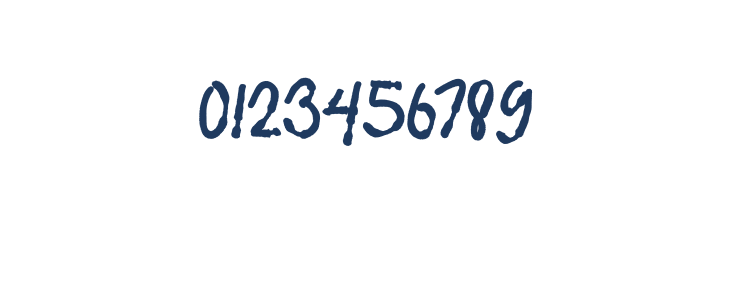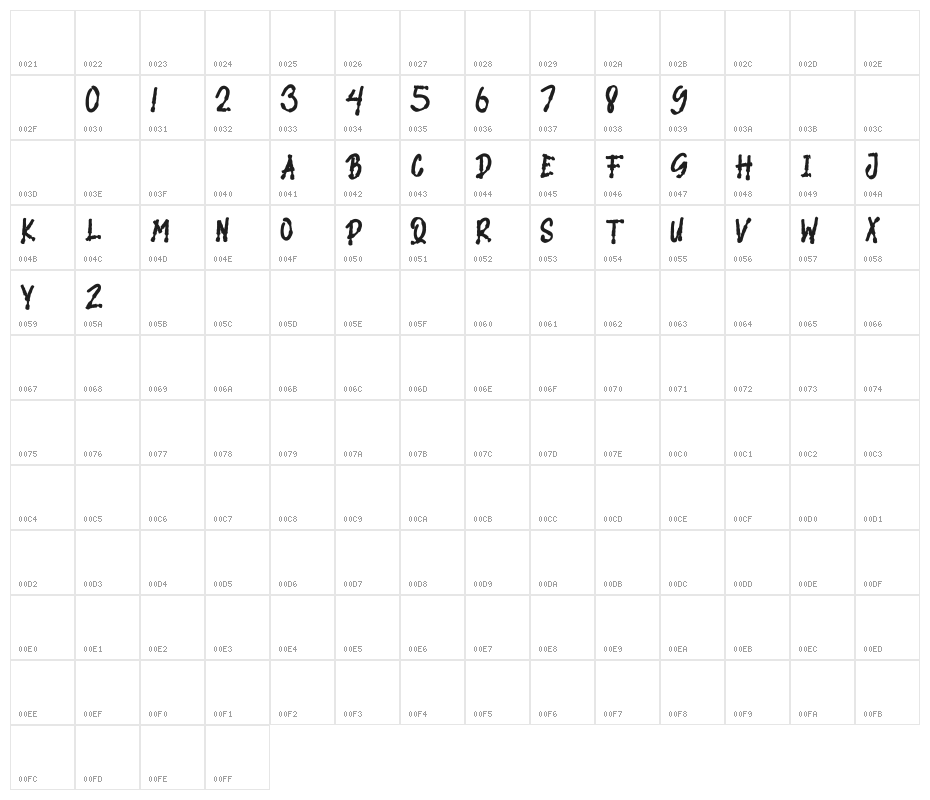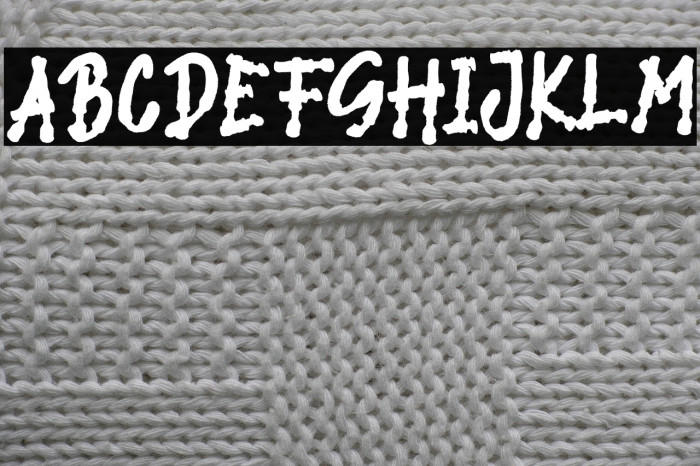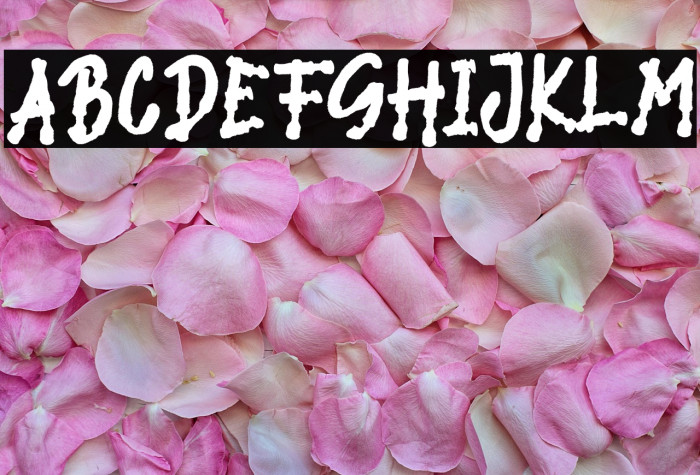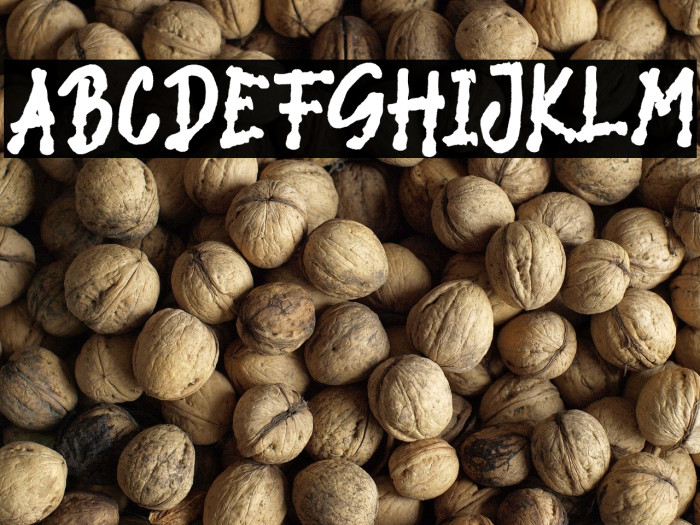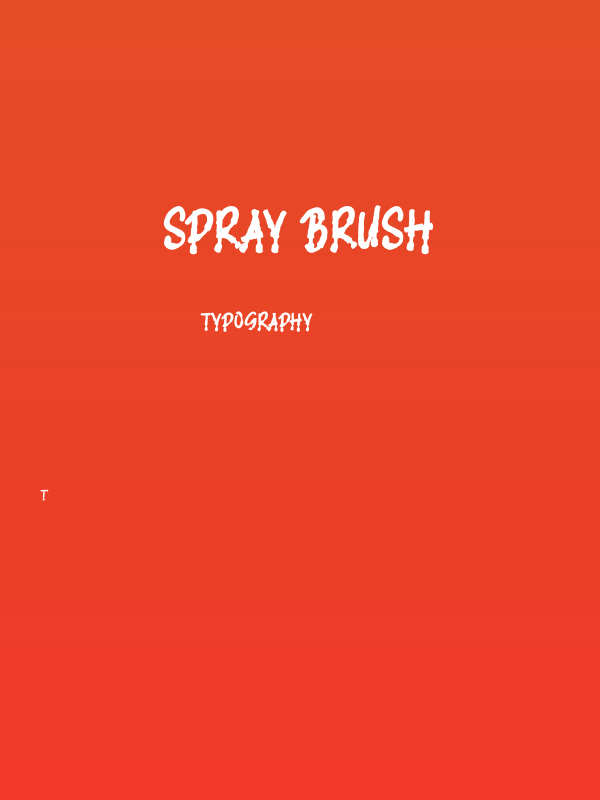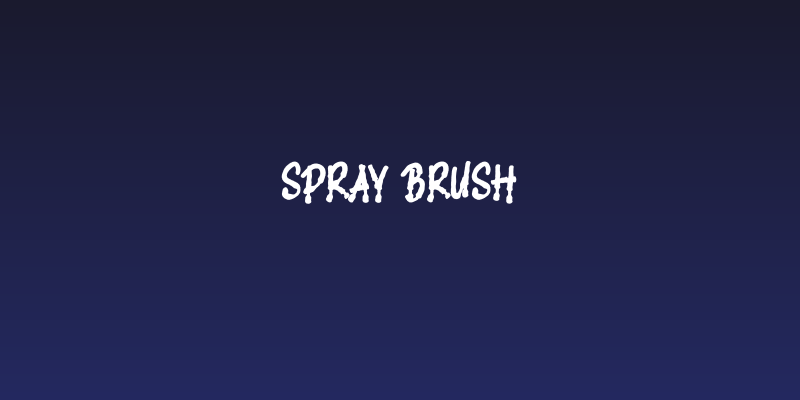
SPRAY BRUSH Font
SPRAY BRUSH Description
This font exudes a dynamic and energetic vibe, reminiscent of graffiti or street art. The characters are bold and irregular, with a hand-drawn appearance that mimics the effect of spray paint. Each letter and number has a unique, slightly rough texture, giving the font a raw and authentic feel. The strokes vary in thickness, adding to the spontaneous and artistic style. This font is perfect for projects that require a bold statement or an urban, edgy aesthetic. Its playful yet rebellious nature makes it ideal for creative designs that aim to capture attention.
| Overall Style | Urban, Edgy, Artistic |
| Proposed Projects | Ideal for street art designs, urban-themed posters, music album covers, and edgy branding projects. |